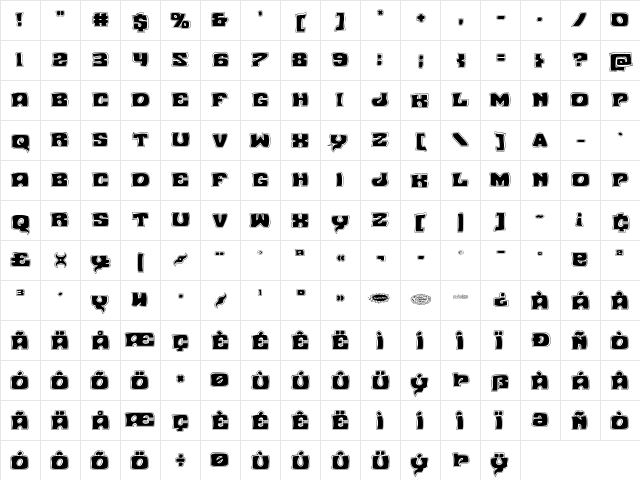
Nuevo Passion Academy Regular
Design Context for Nuevo Passion Academy Typeface
Nuevo Passion Academy is a composed and adaptable typeface that performs quietly and consistently across a wide range of design contexts.